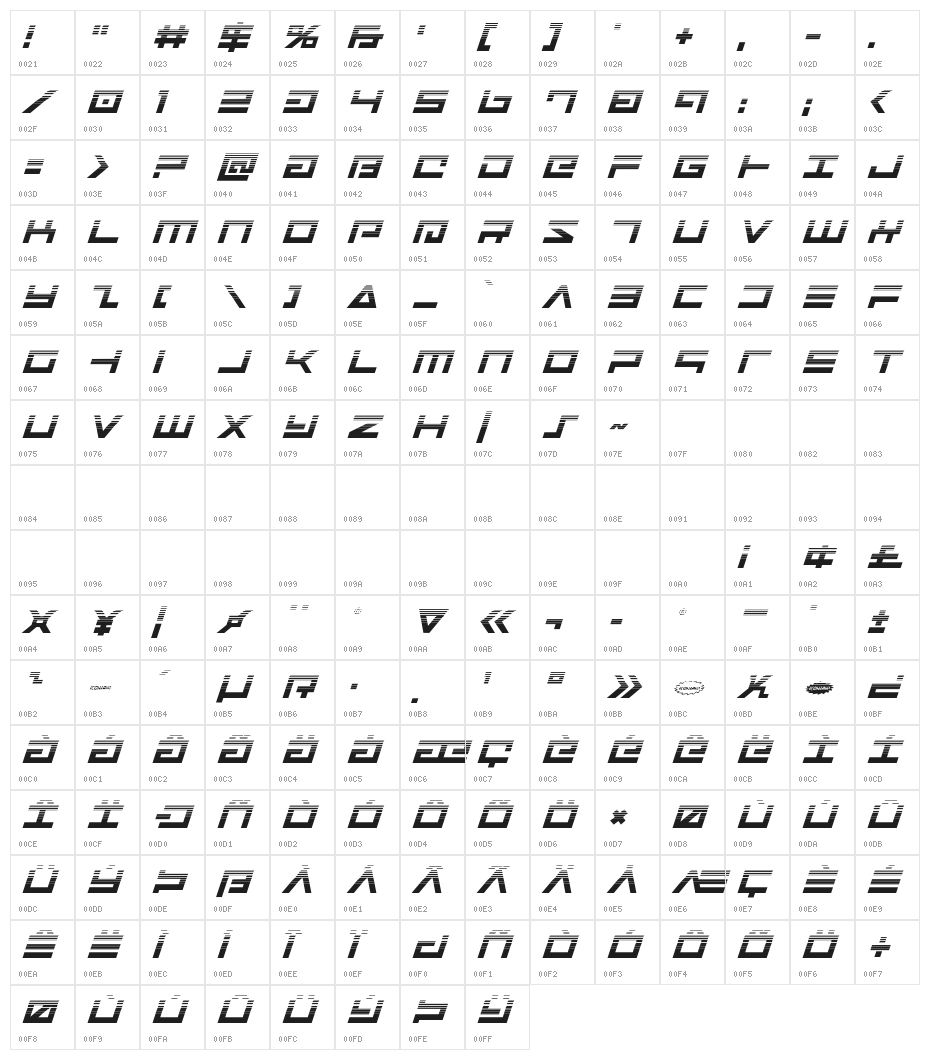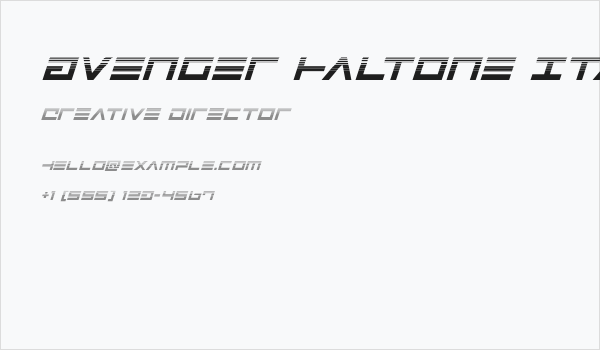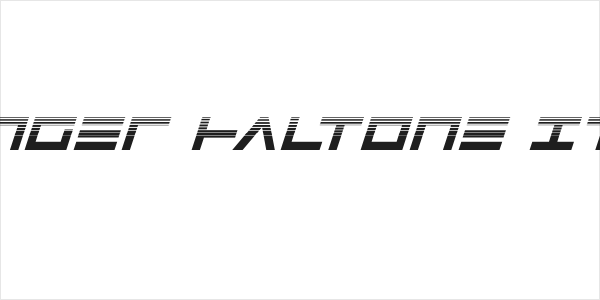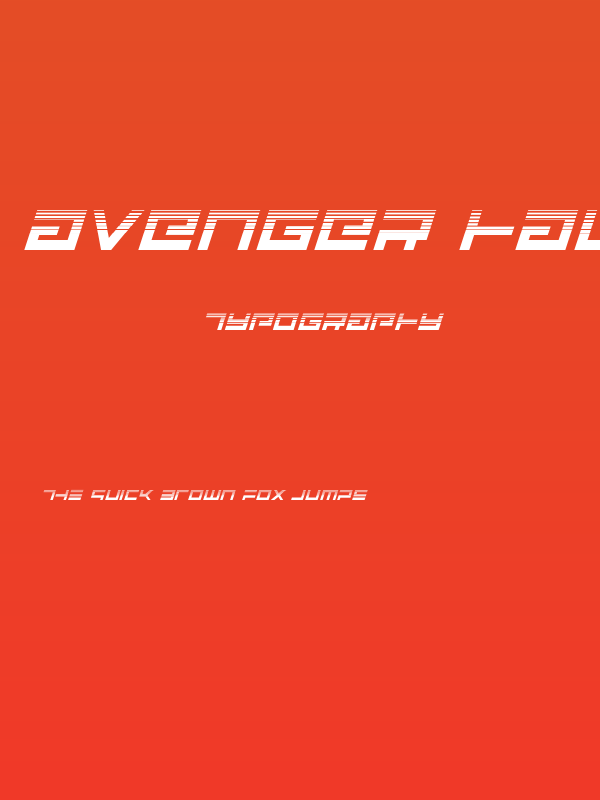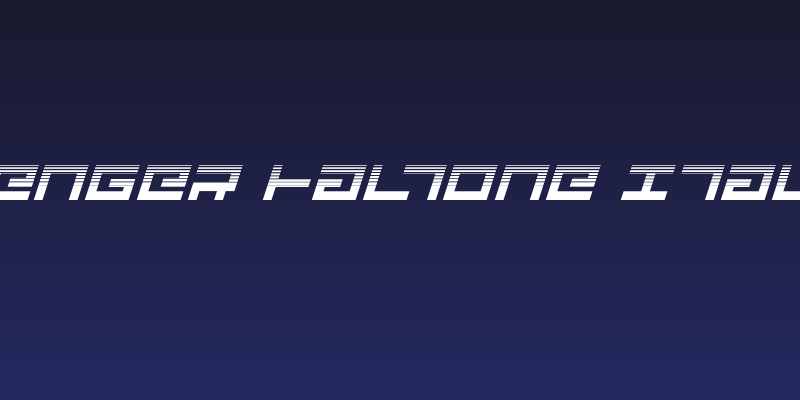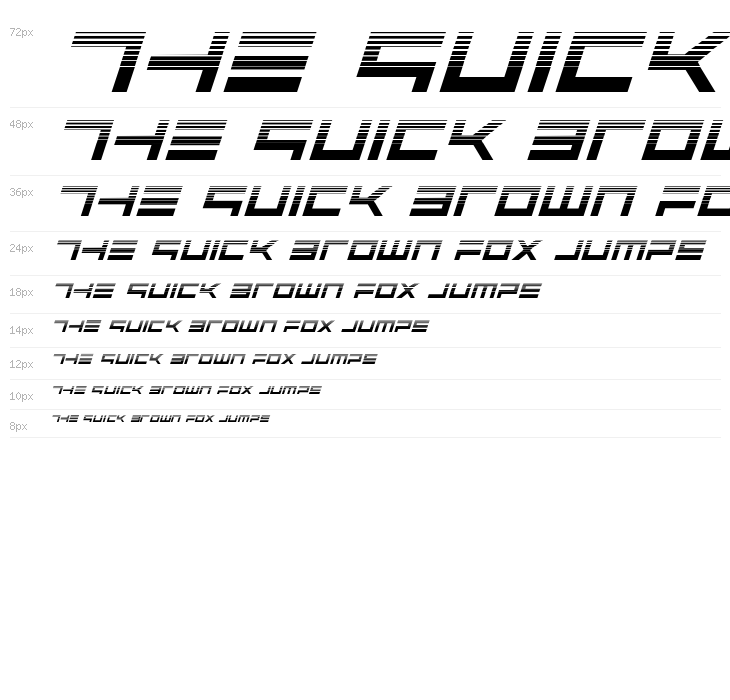
Avenger Haltone Italic Font
Avenger Haltone Italic Description
This font features a bold and futuristic design with a distinct halftone effect. The characters are italicized, giving them a dynamic and forward-leaning appearance. Each letter is composed of multiple horizontal lines, creating a sense of movement and speed. The font is highly stylized, making it ideal for projects that require a modern and edgy look. The uppercase and lowercase letters maintain a consistent style, while the numerals and special characters complement the overall design. The spacing between characters is tight, enhancing the compact and cohesive feel of the text.
Overall StyleFuturistic
Proposed ProjectsIdeal for sci-fi movie posters, video game titles, tech branding, and modern advertisements.